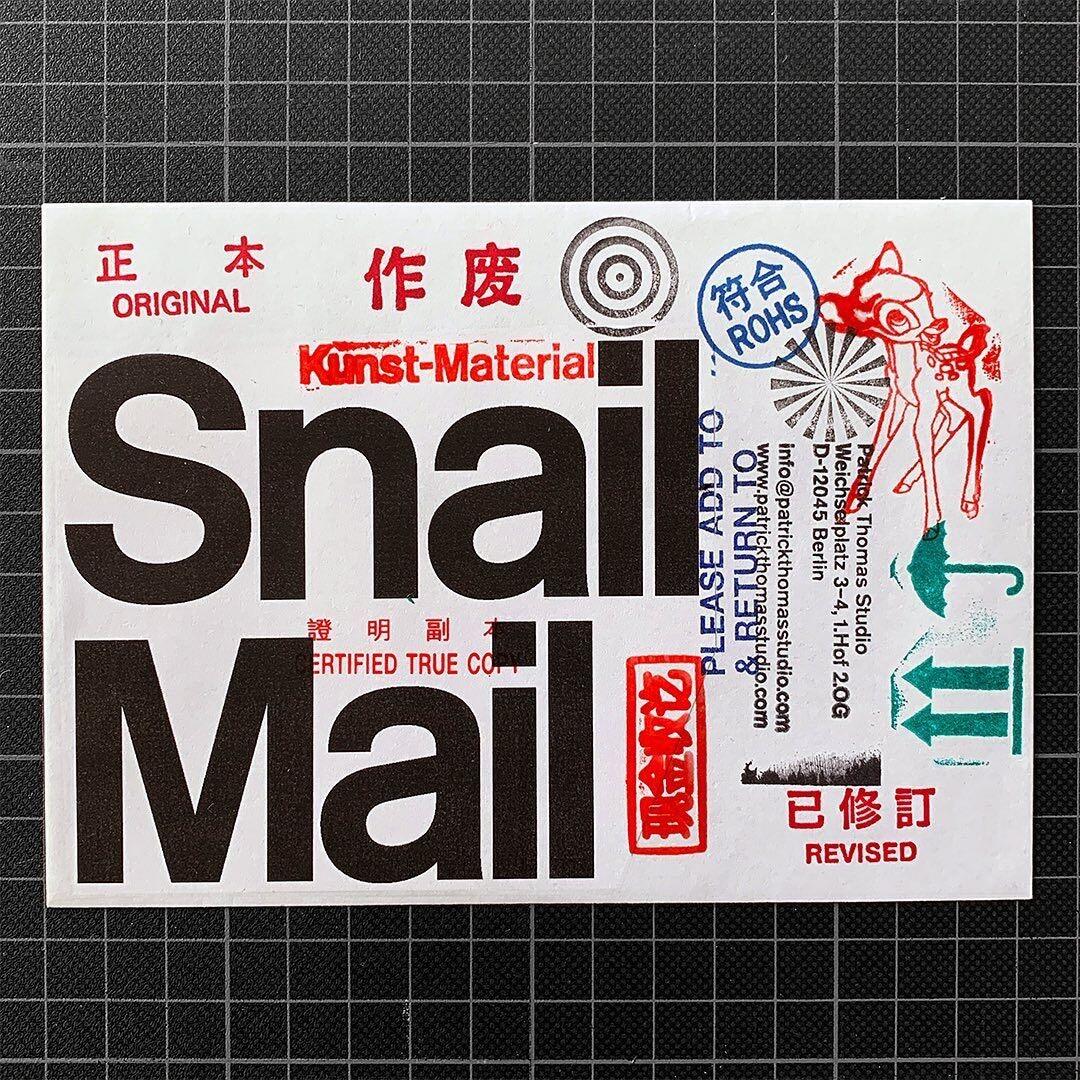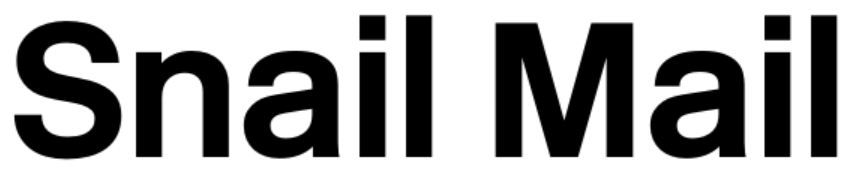
Looking for this Favorit-like grotesque font on Patrick Thomas' card
Font that reads "Snail Mail". Things that stand out to me:
• Horizontal terminals
• Very close to Dinamo's Favorit
• Vertical joint in lower case a instead of bracketed like in helvetica
• Serif on lower case a is subtle